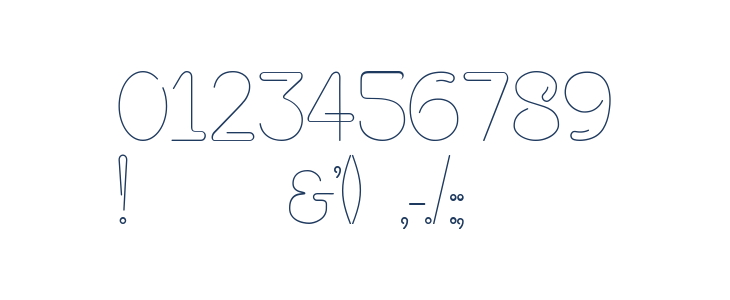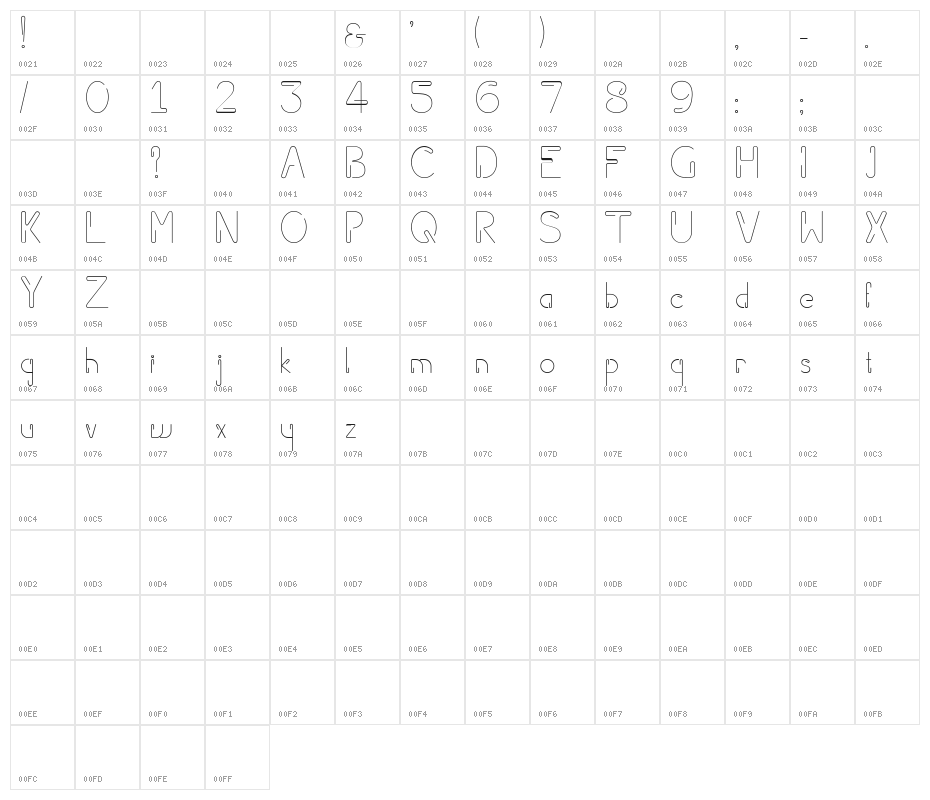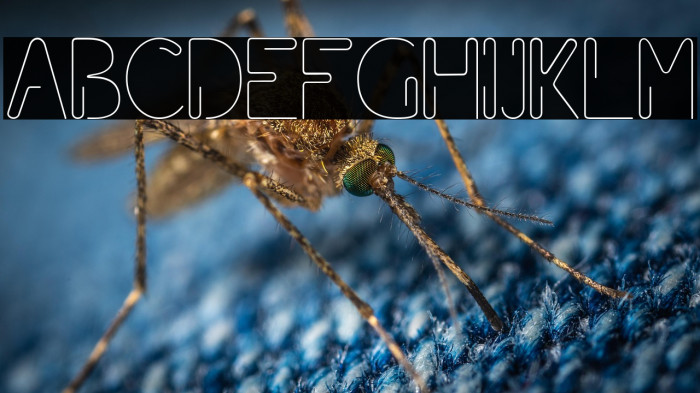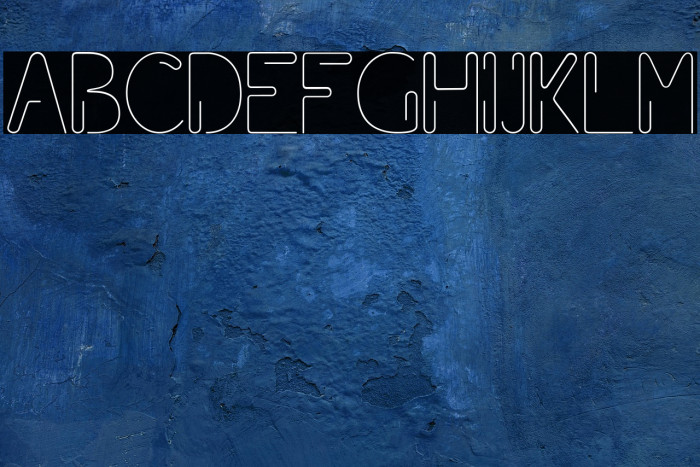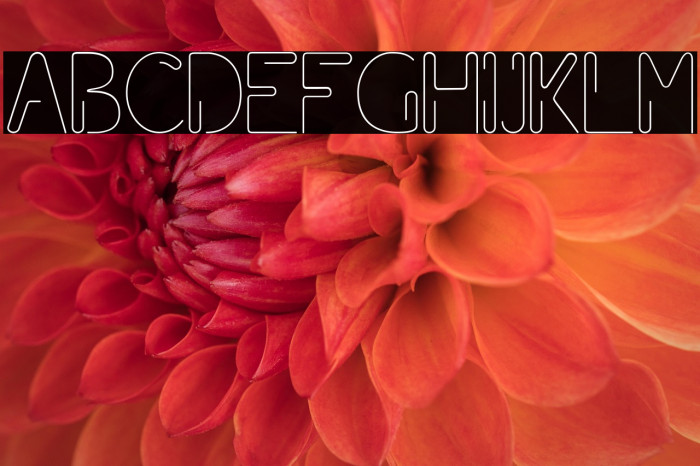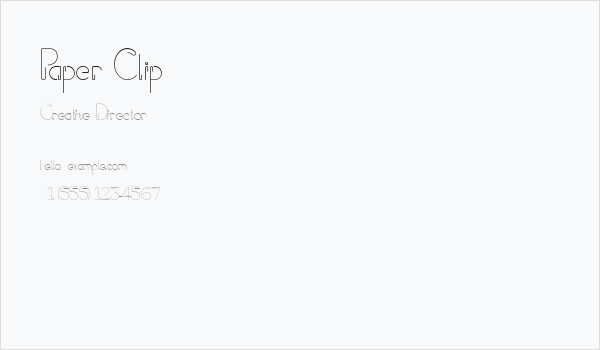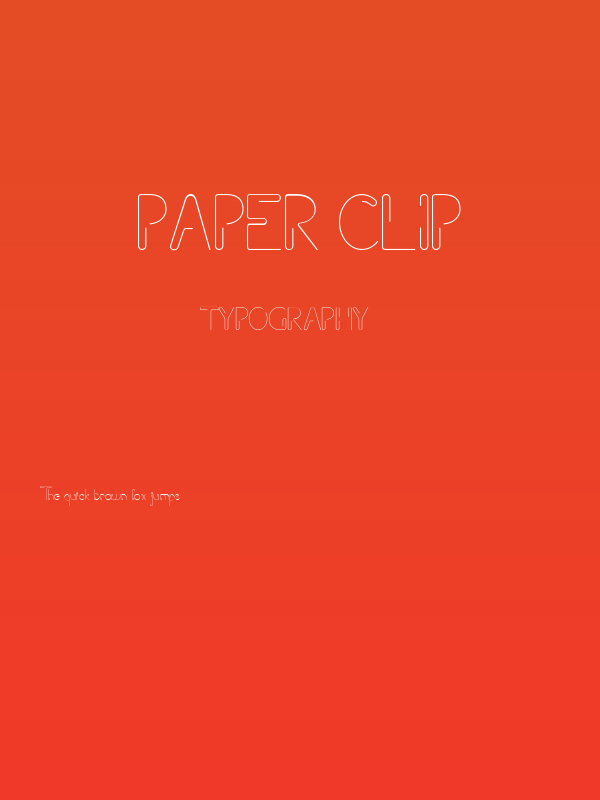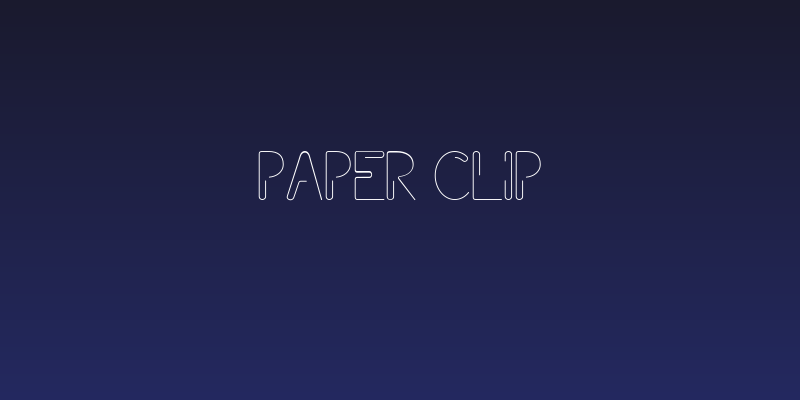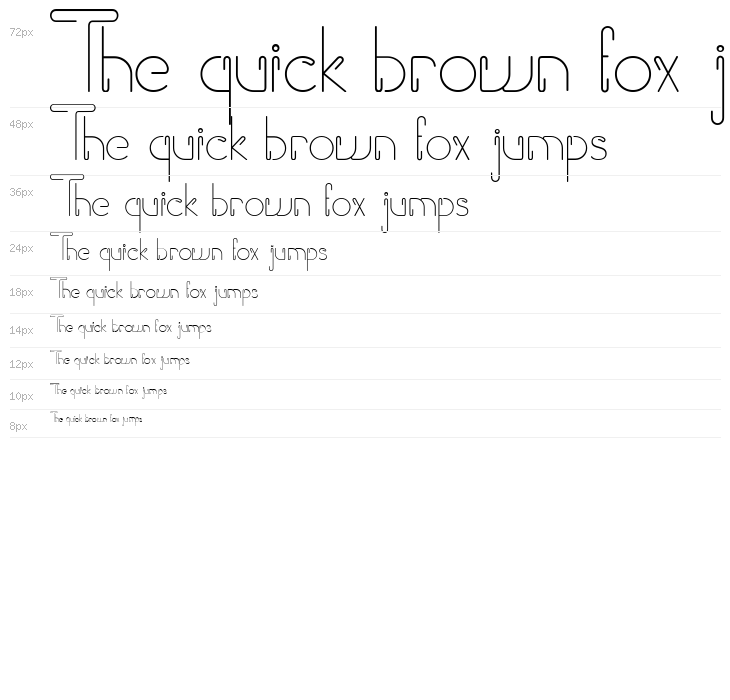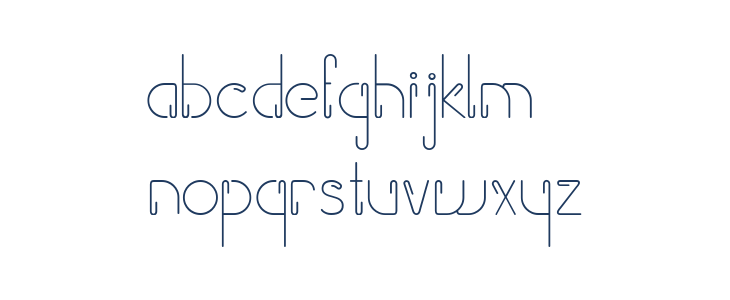
Paper Clip Font
Paper Clip Description
This font features a unique, modern design that mimics the appearance of paper clips. Each character is crafted with a continuous line that loops and bends, creating a playful and innovative aesthetic. The uppercase and lowercase letters maintain a consistent style, with rounded edges and open loops that enhance readability while adding a touch of whimsy. The numbers and special characters follow the same design principles, ensuring a cohesive look across all text elements. This font's distinctive style makes it ideal for creative projects that require a modern and unconventional typeface.